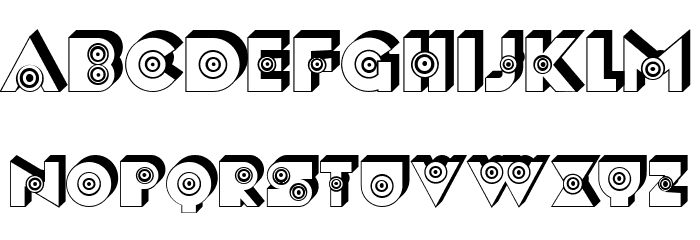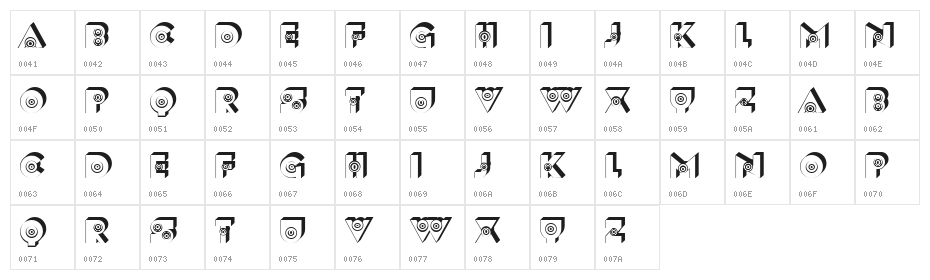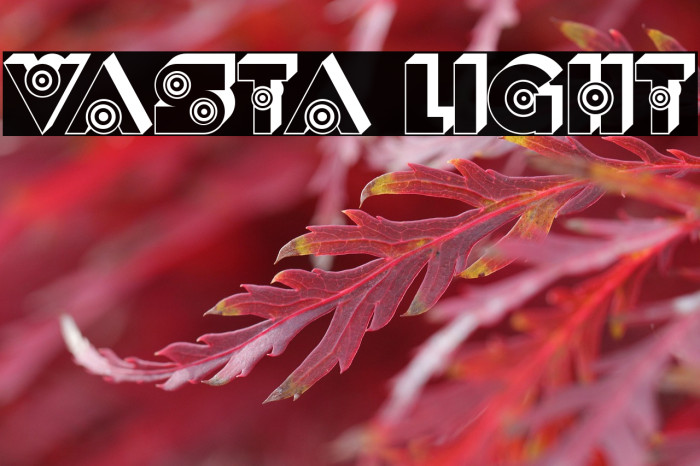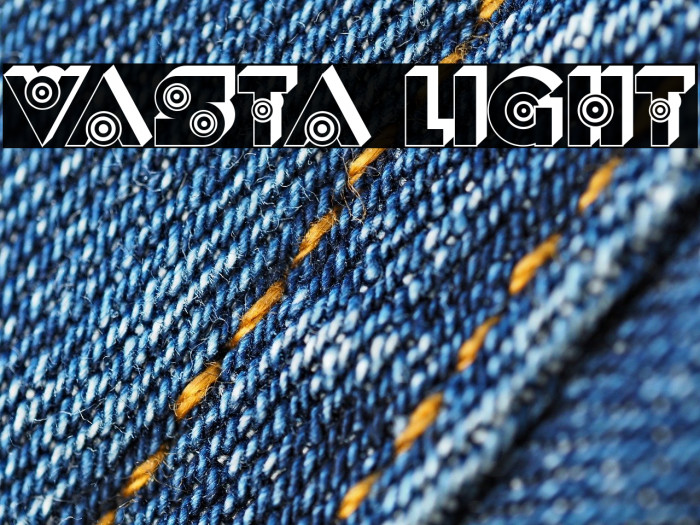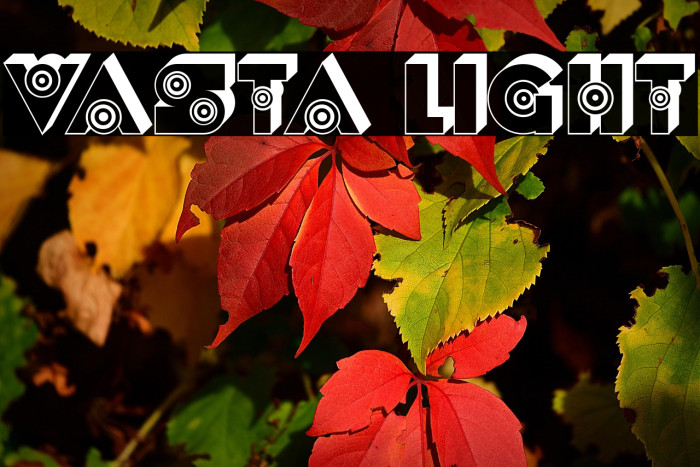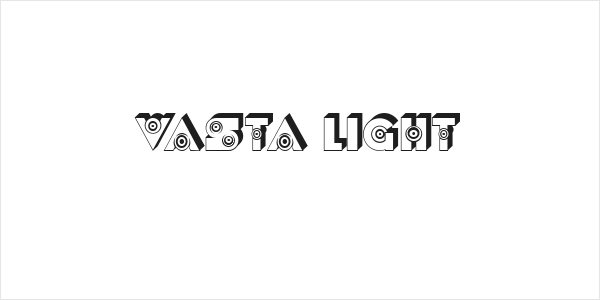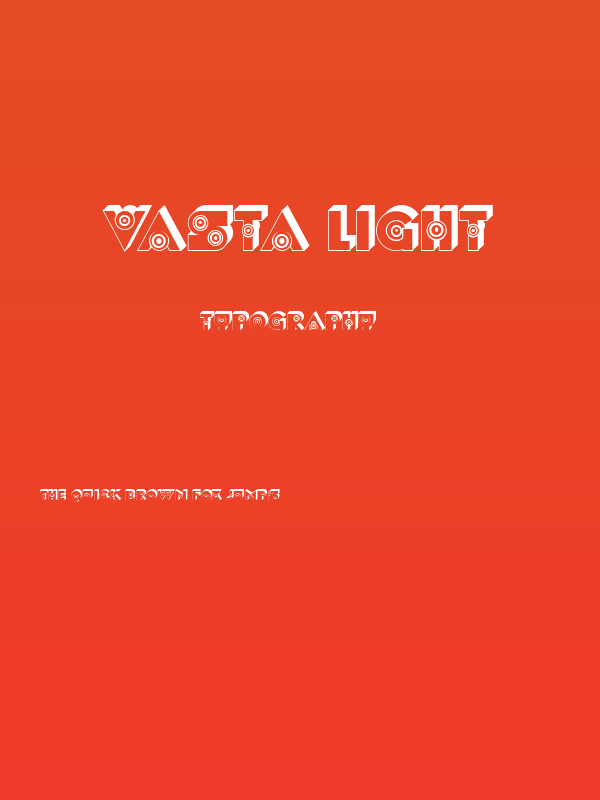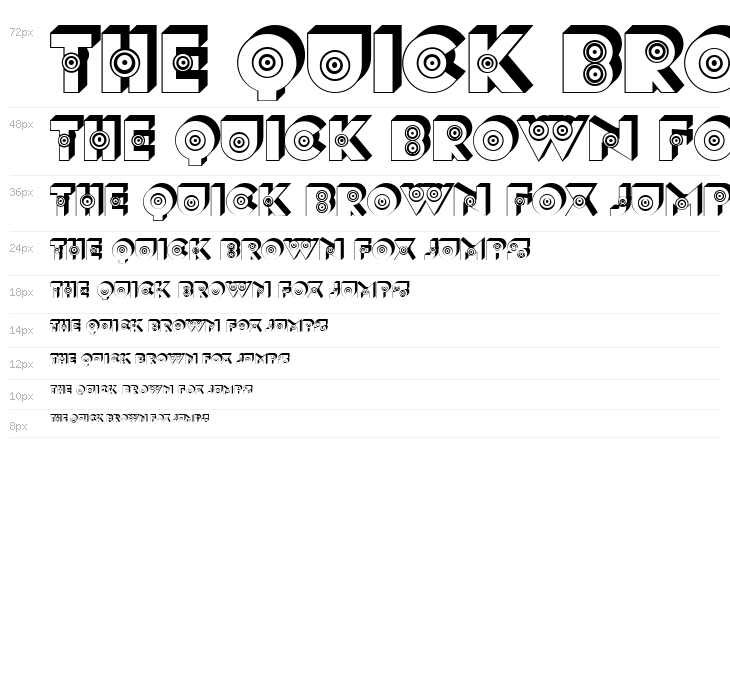
Vasta Light Font
Vasta Light Description
This font features a bold and geometric design with a unique, decorative style. Each letter is crafted with a combination of solid and outlined shapes, creating a striking visual effect. The characters are constructed with a mix of circular and angular elements, giving them a modern and artistic appearance. The font's design is highly stylized, with a playful yet structured form that makes it stand out. The use of concentric circles within the letters adds an extra layer of detail, enhancing its decorative appeal. This font is ideal for projects that require a bold and eye-catching typeface.